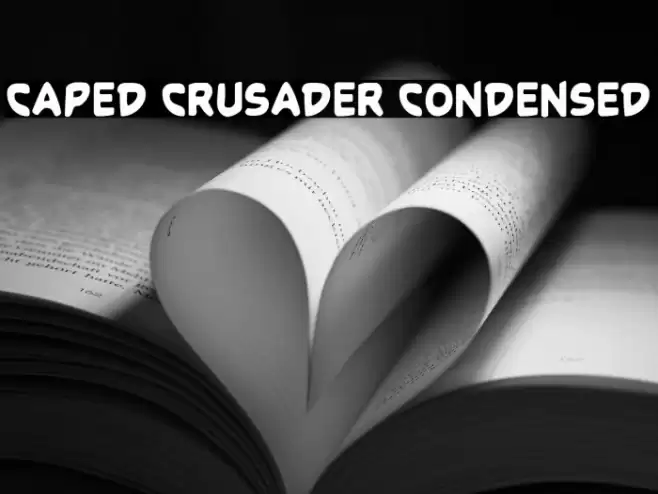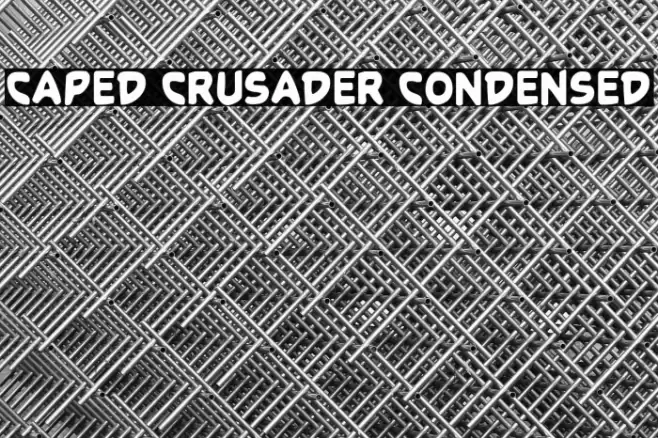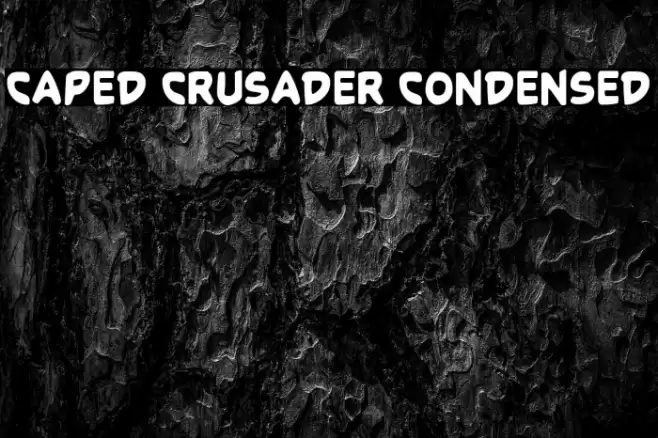
Caped Crusader Condensed Font
Caped Crusader Condensed Description
This font features a bold and playful design with a condensed structure. The characters are rounded and slightly irregular, giving them a hand-drawn, comic-like appearance. The uppercase and lowercase letters maintain a consistent style, with thick strokes and minimal contrast. The numbers and special characters follow the same playful aesthetic, making the font suitable for informal and creative projects. Its unique style captures attention and adds a fun, dynamic element to any design.
A bold, playful, and condensed font with a comic-like, hand-drawn appearance from Uncategorized fonts.
- Font: Caped Crusader Condensed
- Proposed Projects: Ideal for comic books, children's books, playful branding, posters, and any project requiring a fun and dynamic typeface.
- Width: Condensed
- Overall Style: Playful, Comic